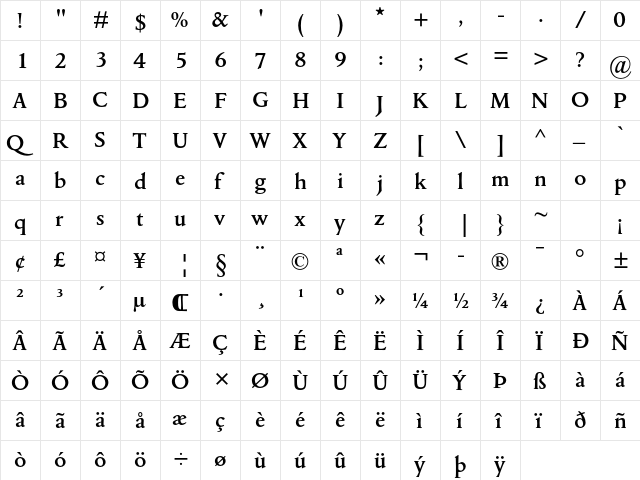
Columbus MT Std Semibold
Design Context for Columbus MT Std Typeface
Columbus MT Std is a composed and adaptable typeface that performs quietly and consistently across a wide range of design contexts. Its bold stroke weight gives it real presence on the page.